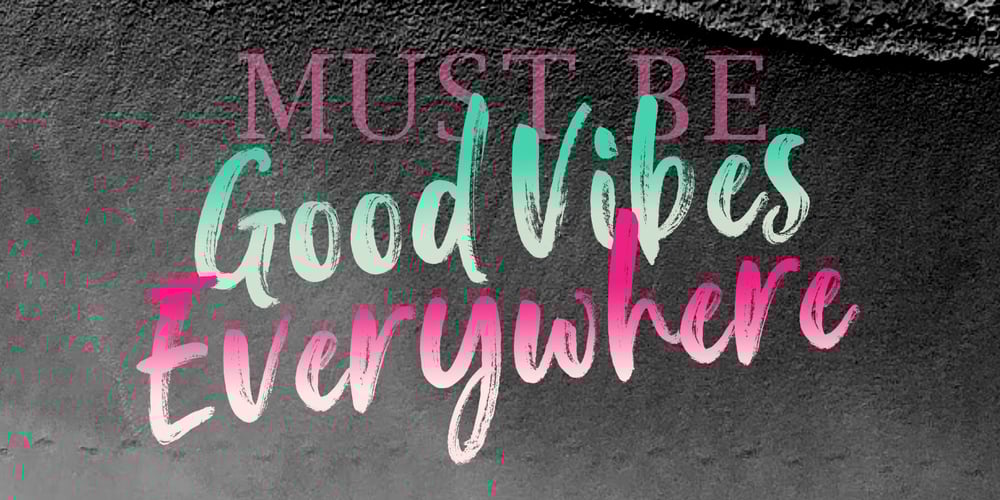
Falbench Font Family was designed by Alam Syahril and published by Realtype. Falbench contains 1 styles and family package options. Falbench is a manual written font to get the best texture for each letter. Each letter character will make your design strong and dazzling, while challenging the eyes. Each letter and symbol is simply painted using the best brushes and ink.